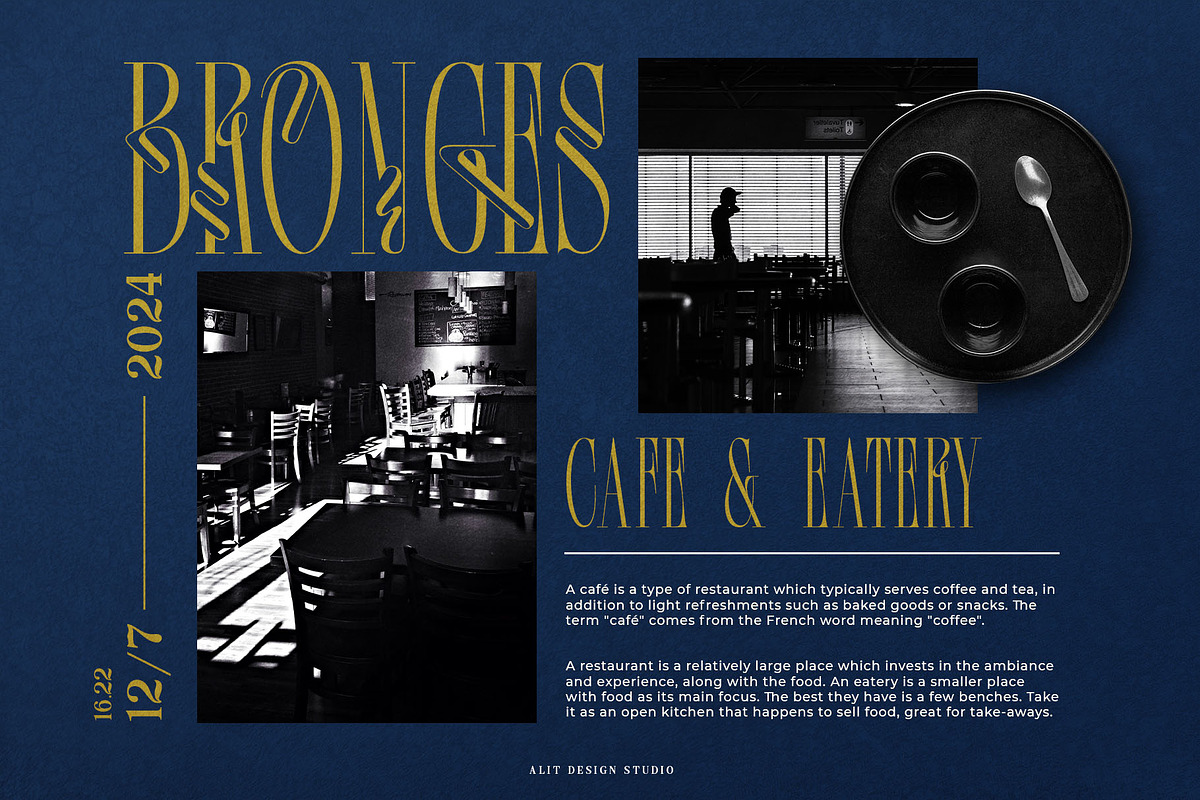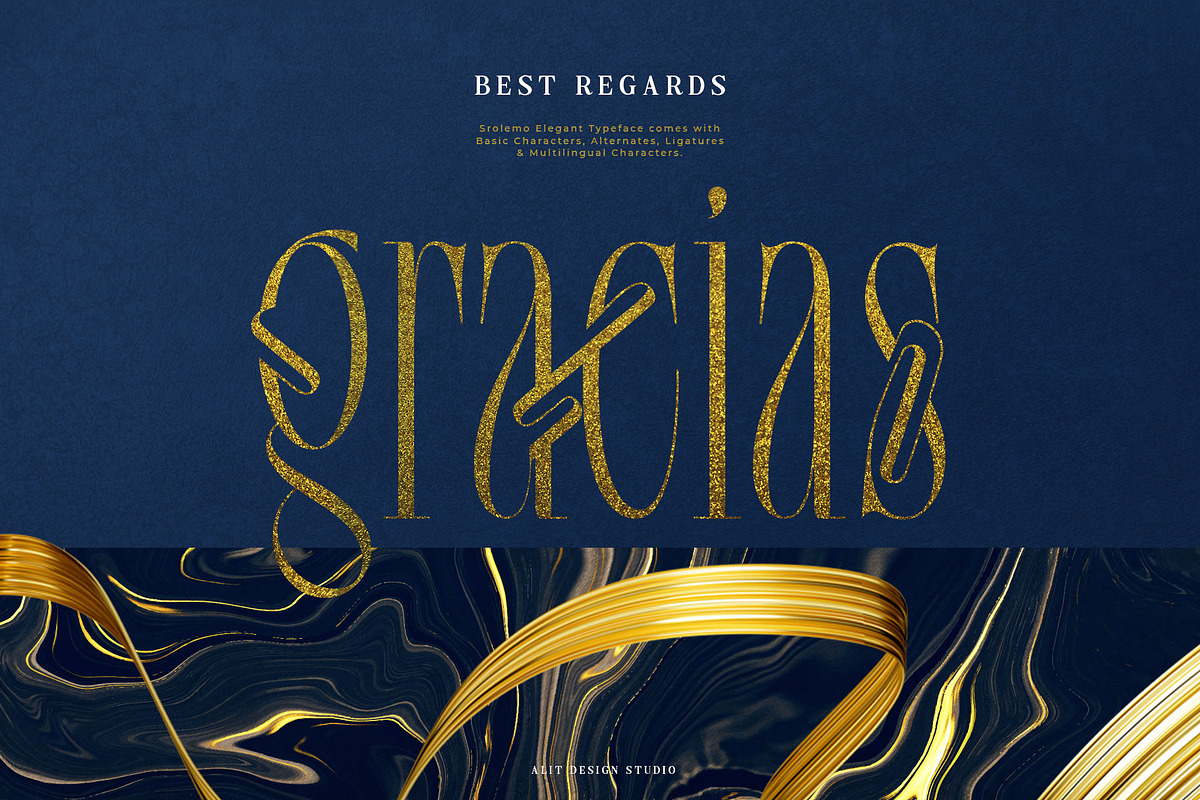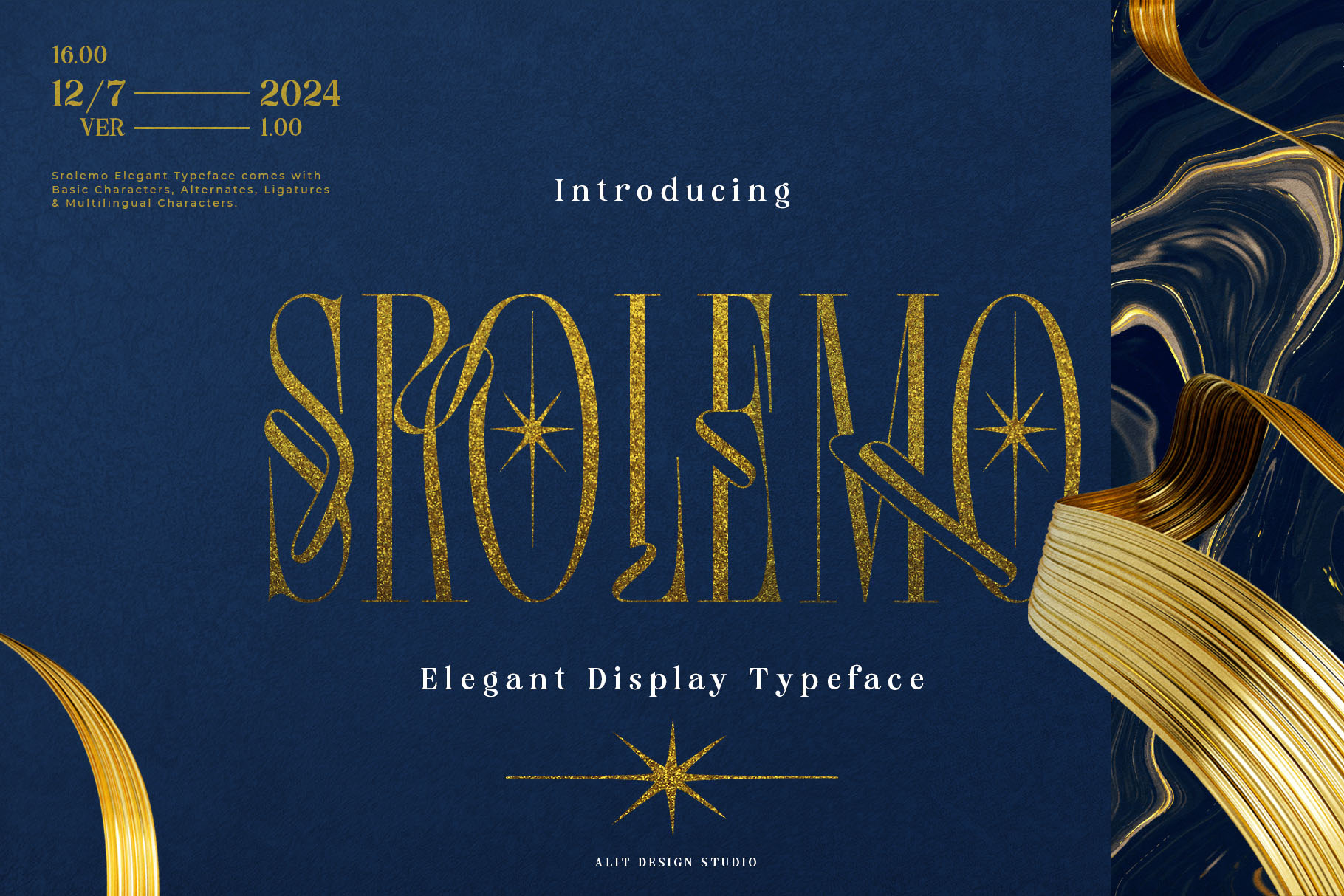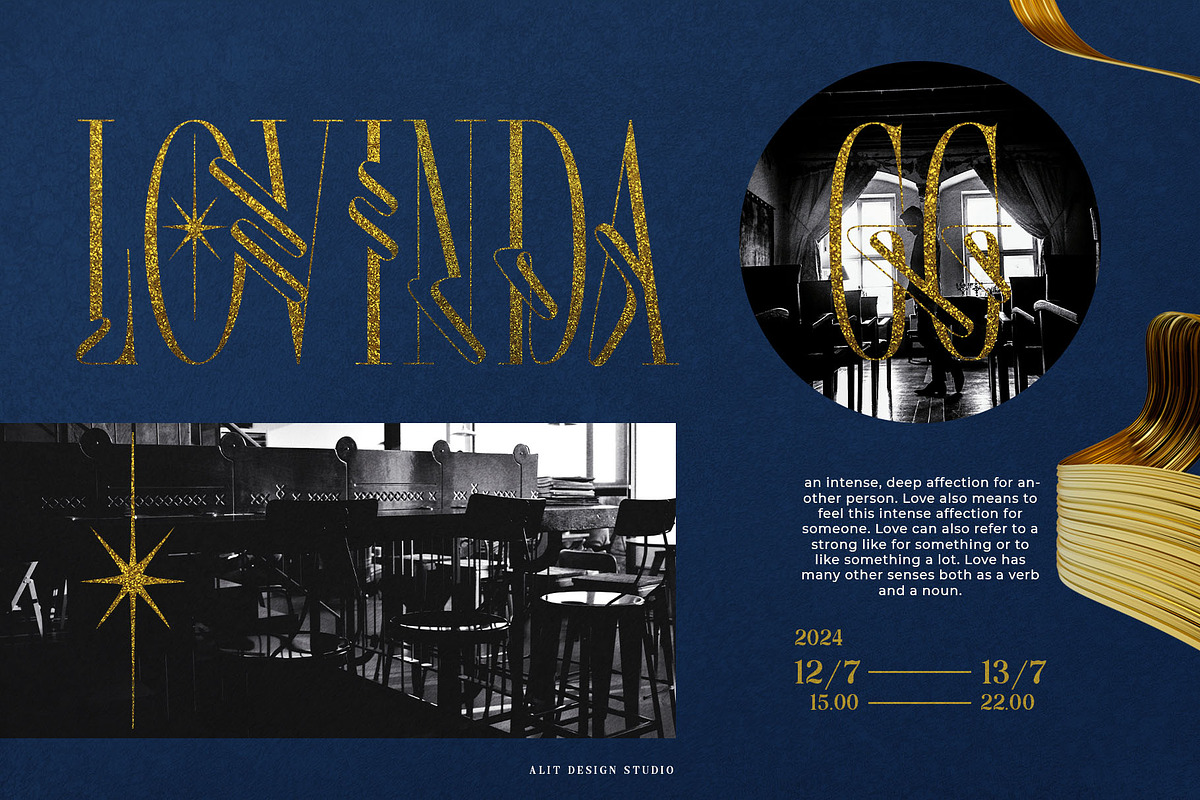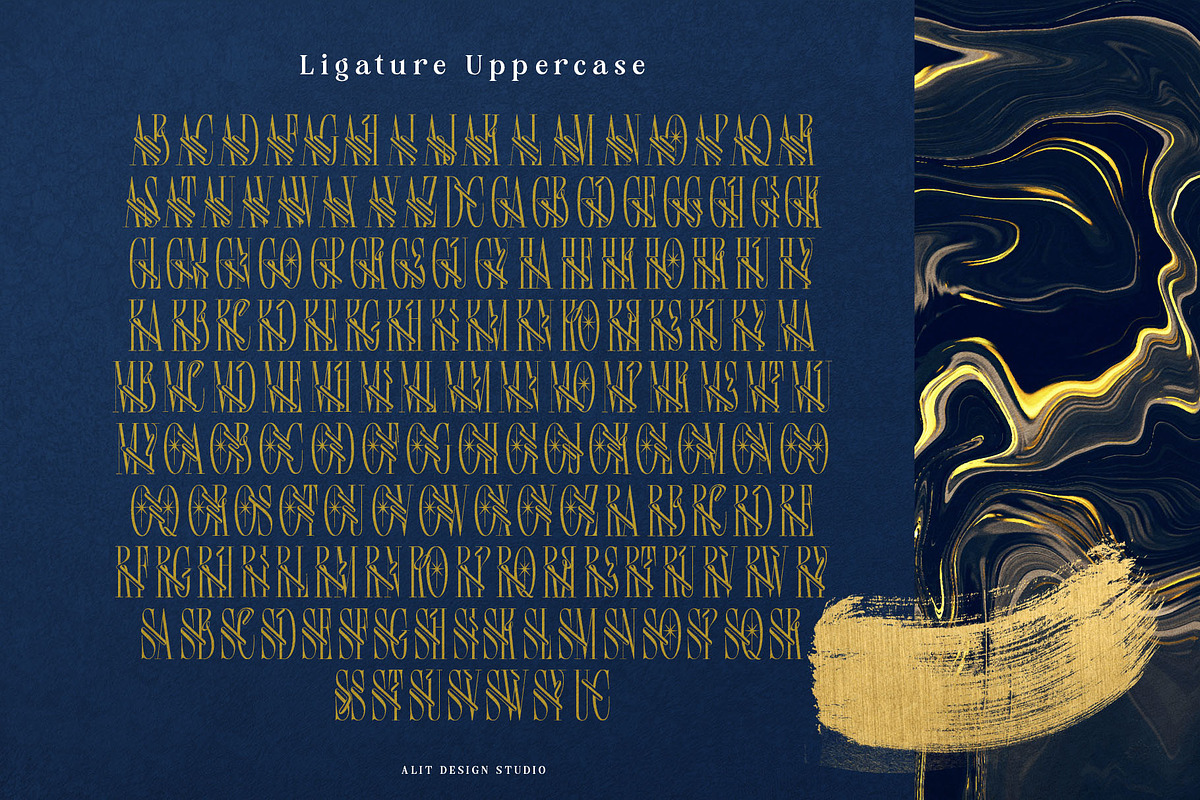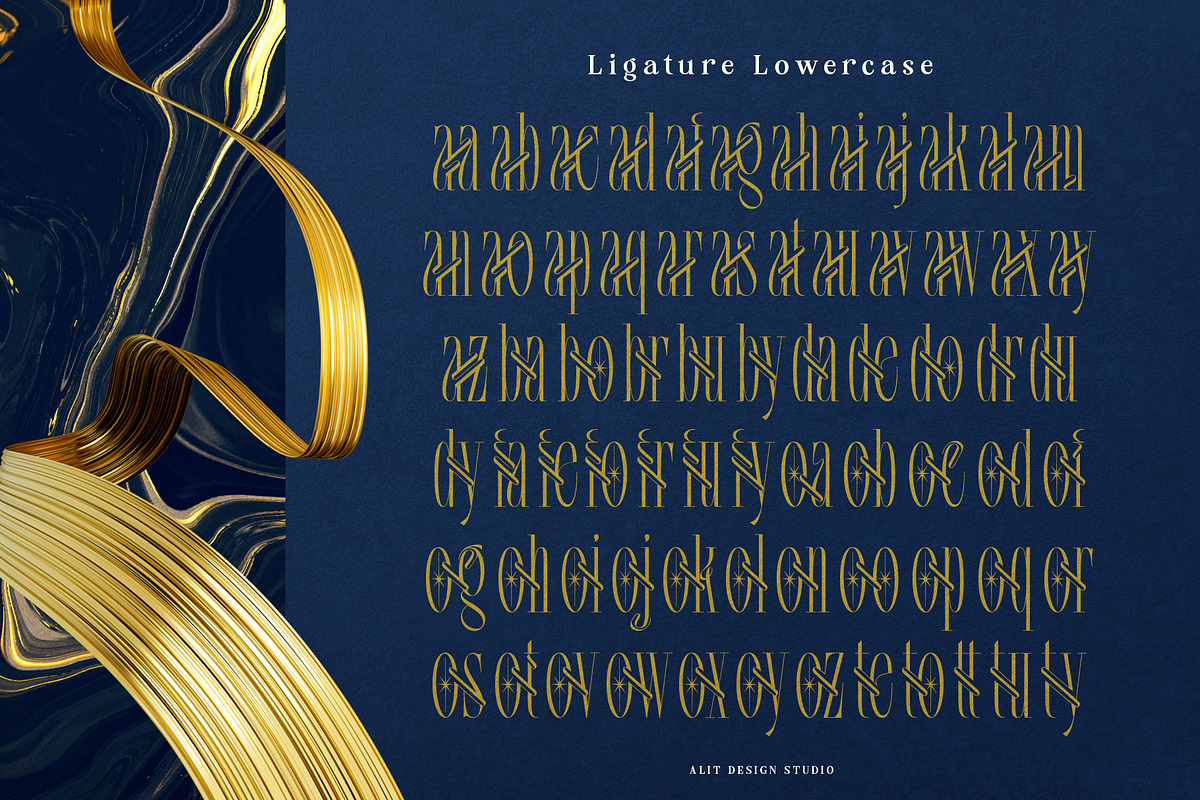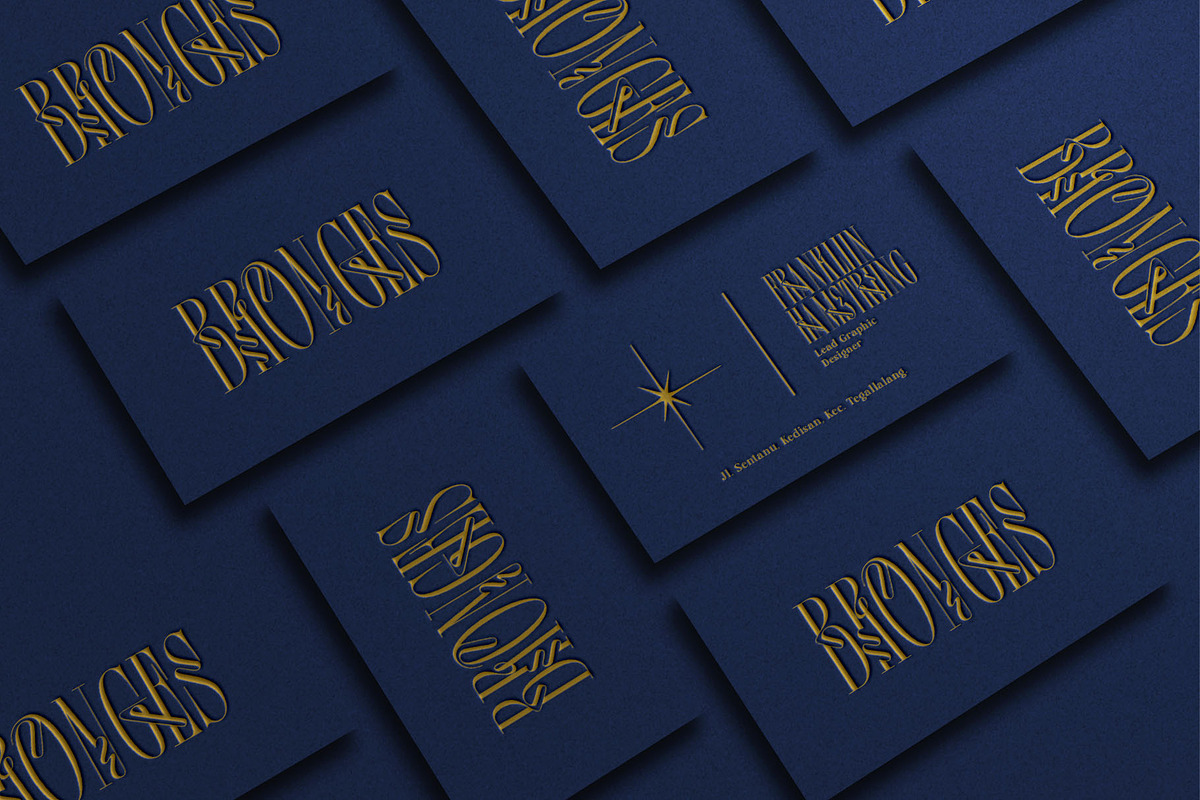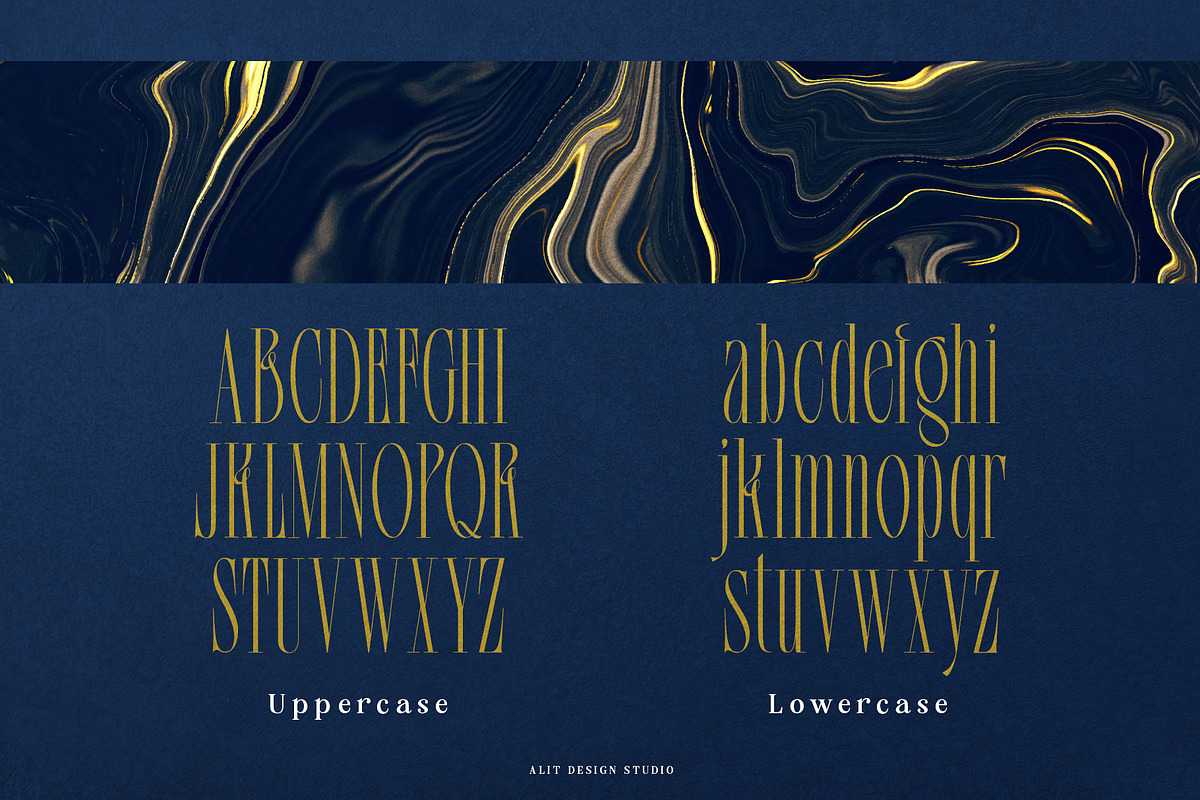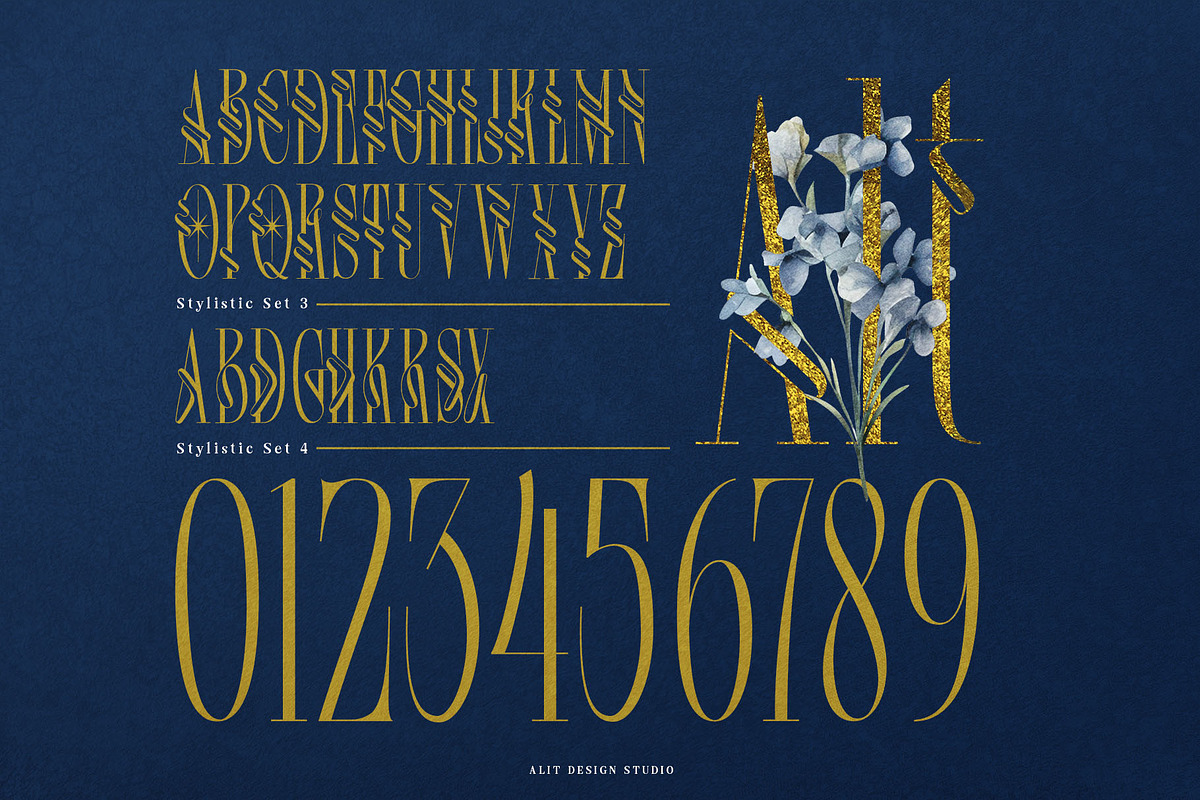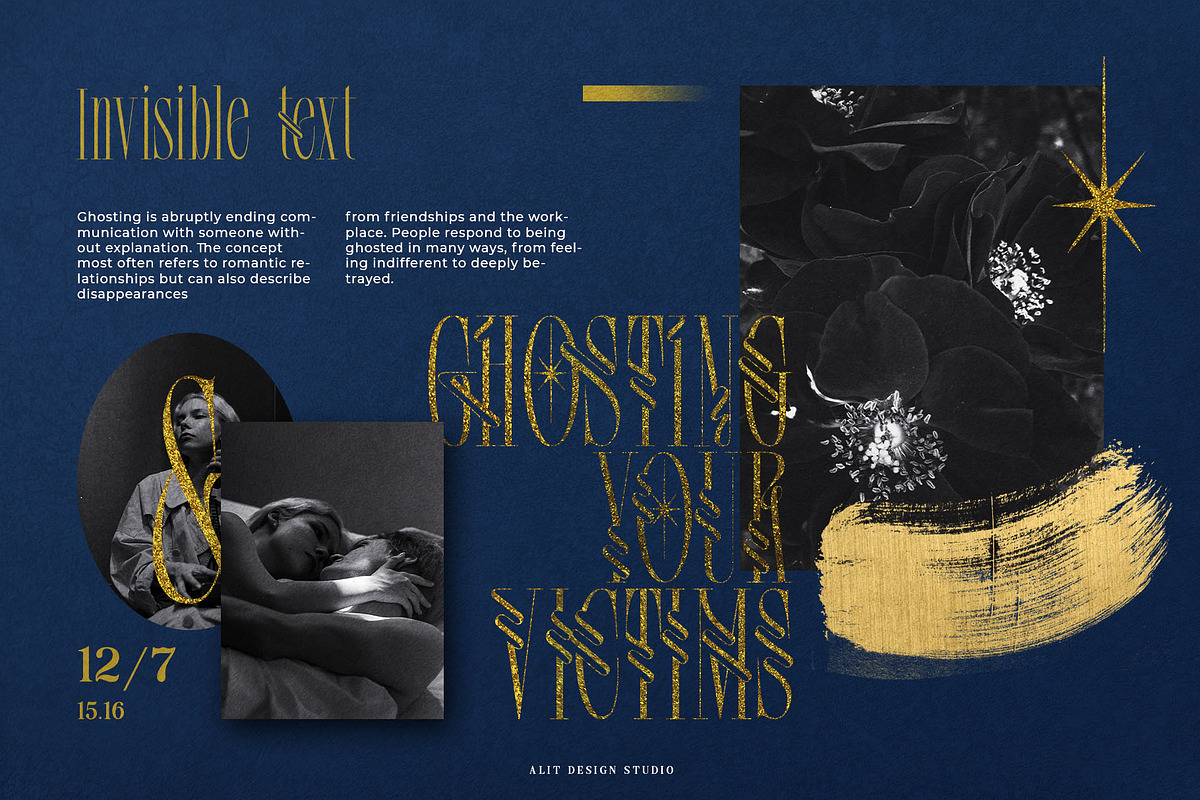
Srolemo Typeface
SROLEMO is a modern serif typeface that stands tall and exudes elegance, sophistication, and a touch of whimsy. Designed with a tall body, SROLEMO commands attention with its striking presence, making it ideal for headlines, logos, and branding materials where you want to make a statement.
Modern Serif Design: SROLEMO features clean, crisp lines typical of modern serif fonts, providing a contemporary feel while maintaining the timeless elegance of traditional serif typefaces.
Tall Body: The elongated vertical proportions of SROLEMO give it a distinguished and refined look, enhancing readability and making it perfect for titles and headers.
Curved Alternatives: Adding a dynamic touch, SROLEMO includes many curved alternatives reminiscent of flowing ribbons. These curves introduce a playful and artistic element, allowing for versatile and creative typography.
Unique Ligatures: One of the standout features of SROLEMO is its unique ligatures. Carefully crafted to intertwine seamlessly, these ligatures add a distinctive and intricate flair to the font, ensuring your text stands out.
Ideal Uses:
Branding and Logos: SROLEMO's unique characteristics make it perfect for creating memorable logos and brand identities that require a modern yet classic touch.
Headlines and Titles: The tall and elegant structure of SROLEMO makes it ideal for use in headlines and titles, where it can command attention and convey sophistication.
Editorial Design: Perfect for magazines, brochures, and other editorial layouts, SROLEMO adds a touch of class and creativity to any printed or digital material.
Invitations and Stationery: The playful curves and unique ligatures make SROLEMO an excellent choice for wedding invitations, greeting cards, and other stationery items, where a touch of elegance is desired.
In Summary:
SROLEMO is more than just a font; it's a statement piece. Combining modern serif elements with tall proportions, dynamic curved alternatives, and unique ligatures, SROLEMO is designed to elevate your typography to new heights. Whether you're working on branding, editorial design, or any project that demands a touch of sophistication and creativity, SROLEMO is the perfect choice to make your text truly stand out.